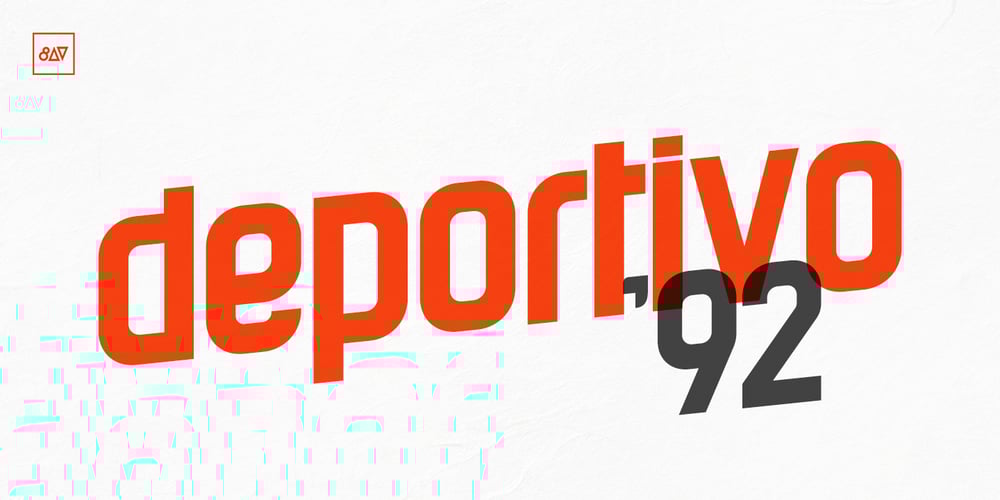
Deportivo Font Family was designed by Octavian Catana and published by 8AV. Deportivo contains 1 styles and family package options. Welcome Deportivo – Spanish for sporty. Deportivo is a simple and powerful typeface based on the lettering on vintage sports equipment. I saw it as a brand on a pair of old skis and fell in love with it because it is so bold and it can be easily read while moving at high speed, making it perfect in a sports and dynamic environment. Due to its high legibility, it gets great results with sports teams, league names and t-shirt numbers and race indications. The high x-height gives the typeface a unique look and a strong tone of voice – that will echo in each arena and outside making it perfect also for headlines in newspapers and magazines and product names. Keep scoring!